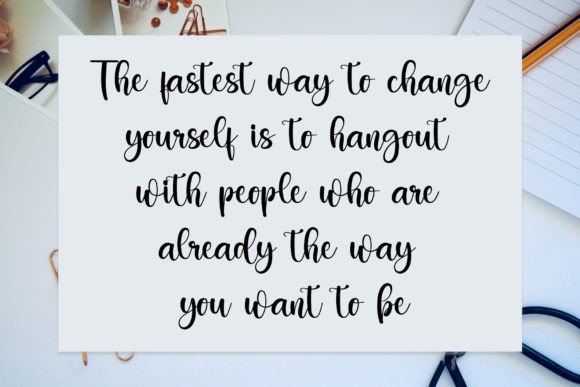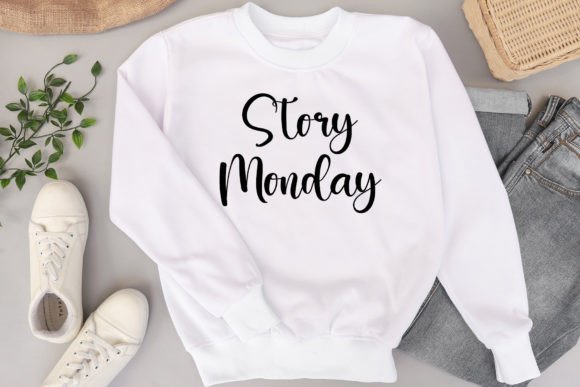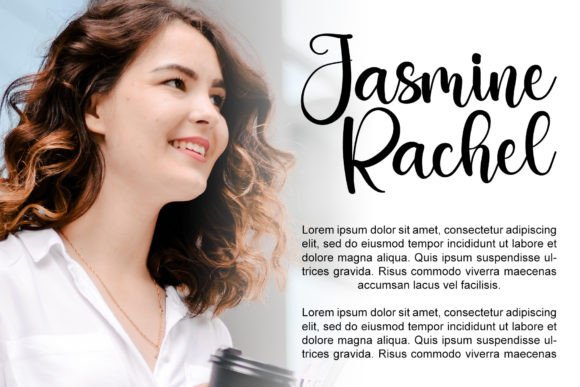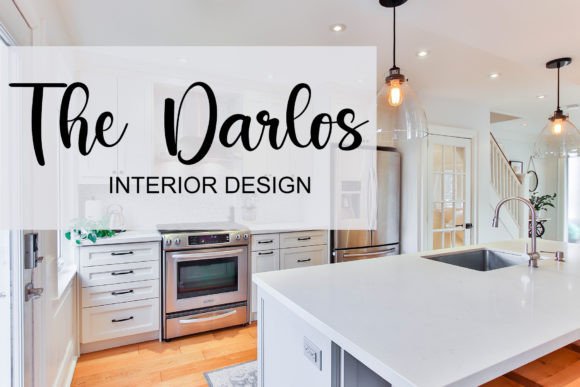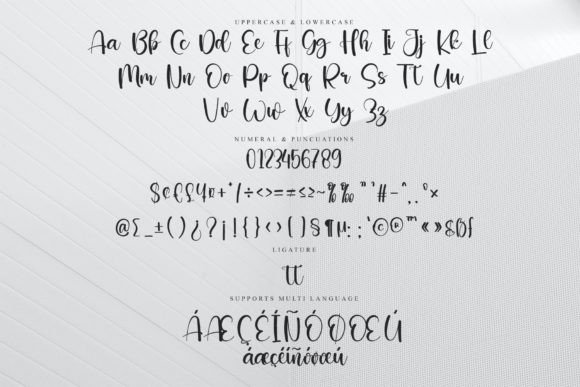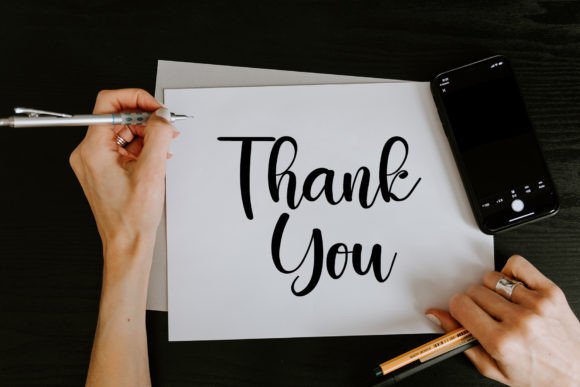
Introducing Backshift Font: The Sweet and Cursive Handwritten Font for Elegant Designs
Are you looking for a font that can add a touch of elegance and romance to your designs? Look no further than Backshift Font, a sweet and cursive handwritten font that is perfect for a variety of design projects. In this article, we’ll take a closer look at the features and benefits of Backshift Font, and explore how it can be used to create stunning designs.
What is Backshift Font?
Backshift Font is a beautiful, cursive handwritten font that is designed to add a touch of elegance and sophistication to your designs. Its gentle curves and flowing lines make it perfect for creating romantic and feminine designs that are sure to capture the attention of your audience.
Features of Backshift Font
So, what makes Backshift Font so special? Here are just a few of its key features:
- Sweet and Cursive Design: Backshift Font features a sweet and cursive design that is perfect for creating elegant and sophisticated designs.
- Handwritten Style: The font has a handwritten style that gives it a personal and unique touch.
- Versatile: Backshift Font is versatile and can be used for a variety of design projects, from branding and logos to wedding designs and greeting cards.
- Elegant and Casual: The font is elegant and casual, making it perfect for designs that need to look fancy and sophisticated, but still approachable.
Uses for Backshift Font
Backshift Font is perfect for a wide range of design projects, including:
- Branding and Logos: Use Backshift Font to create a beautiful and elegant logo that will help your brand stand out.
- Wedding Designs: The font is perfect for wedding designs, including invitations, programs, and decorations.
- Greeting Cards: Backshift Font is great for creating beautiful and elegant greeting cards for special occasions.
- Fashion and Lookbooks: Use the font to create stunning fashion designs and lookbooks that showcase your products in style.
- Marketing and Promotion: Backshift Font is perfect for marketing and promotion materials, including brochures, flyers, and posters.
Why Choose Backshift Font?
So, why should you choose Backshift Font for your design projects? Here are just a few reasons:
- Unique and Personal: The font has a unique and personal touch that will help your designs stand out.
- Elegant and Sophisticated: Backshift Font is elegant and sophisticated, making it perfect for designs that need to look high-end.
- Versatile: The font is versatile and can be used for a wide range of design projects.
- Easy to Read: Backshift Font is easy to read, making it perfect for designs that need to communicate a message.
Tips for Using Backshift Font
Here are a few tips for using Backshift Font in your design projects:
- Use it as a Title Font: Backshift Font is perfect for use as a title font, where its elegant and cursive design can really shine.
- Pair it with Other Fonts: The font pairs well with other fonts, so don’t be afraid to experiment with different combinations.
- Use it for Headings and Subheadings: Backshift Font is great for use in headings and subheadings, where its elegant design can add a touch of sophistication.
In conclusion, Backshift Font is a beautiful and elegant cursive handwritten font that is perfect for a wide range of design projects. Its sweet and gentle design makes it perfect for creating romantic and feminine designs that are sure to capture the attention of your audience. With its versatility, elegance, and ease of use, Backshift Font is a great choice for designers and crafters looking to add a touch of sophistication to their designs.
Whether you’re creating branding and logos, wedding designs, greeting cards, or marketing materials, Backshift Font is a great choice. So why not give it a try and see how it can help take your designs to the next level?